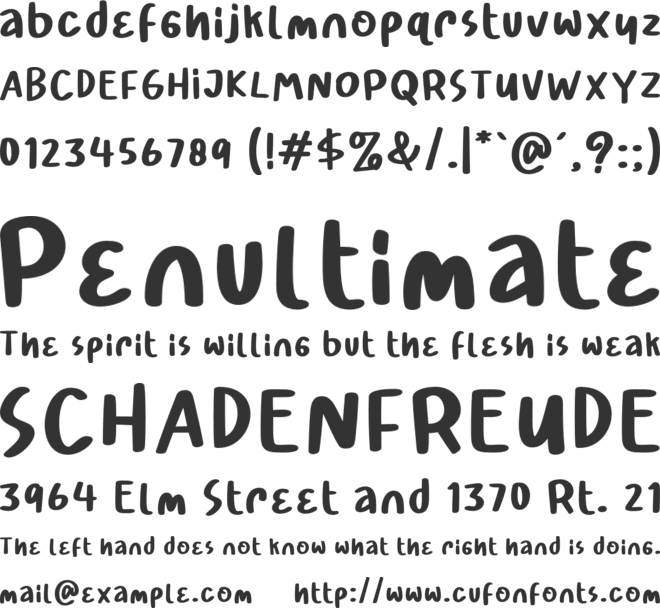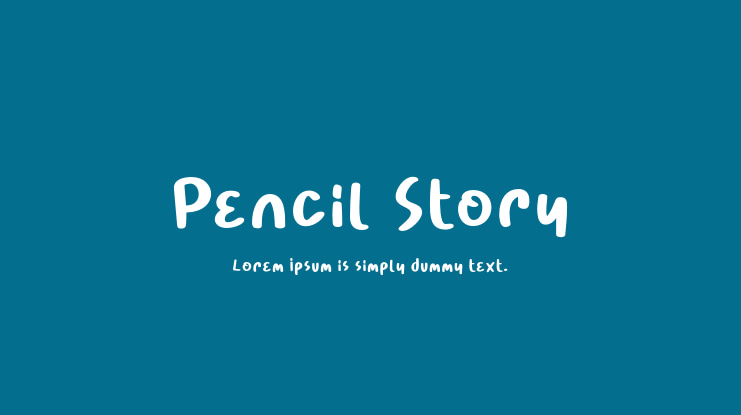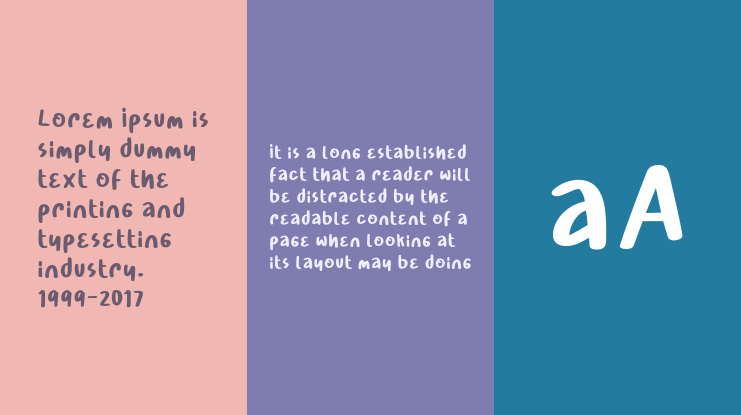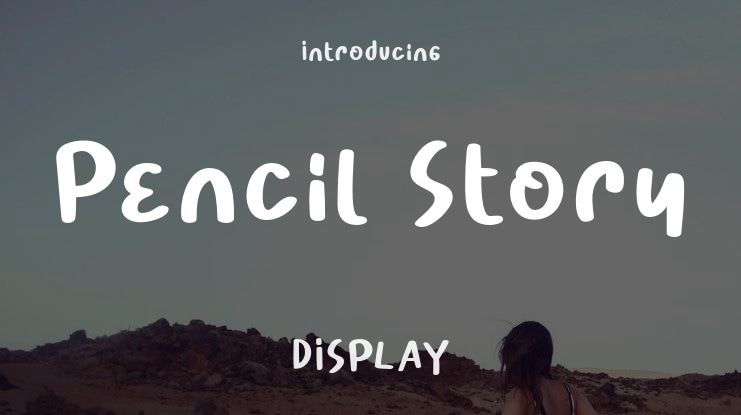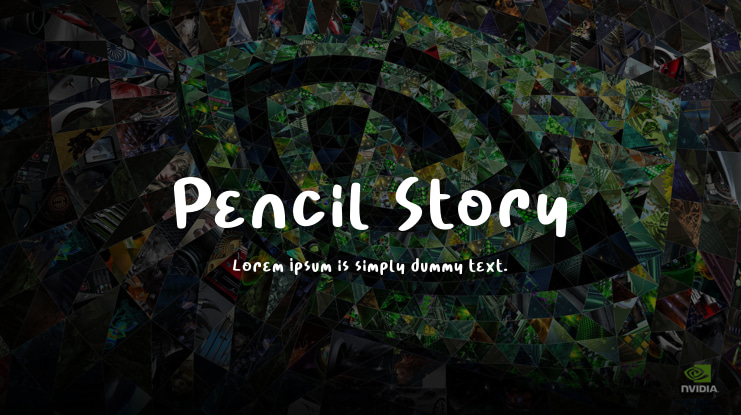
Pencil Story Font
Experience the irresistible charm of Pencil Story, a delightful display font designed to bring a sense of whimsy and joy to your designs. This enchanting typeface effortlessly combines style and versatility, taking your creative projects to new levels of enchantment. Whether you're looking to add a playful twist to quotes, infuse greeting cards with heartfelt sincerity, transform invitations into cherished mementos, make posters more impactful, impress with professional business cards, or breathe life into presentations, Pencil Story is more than just a font – it's your creative companion, elevating your designs to captivating new heights.